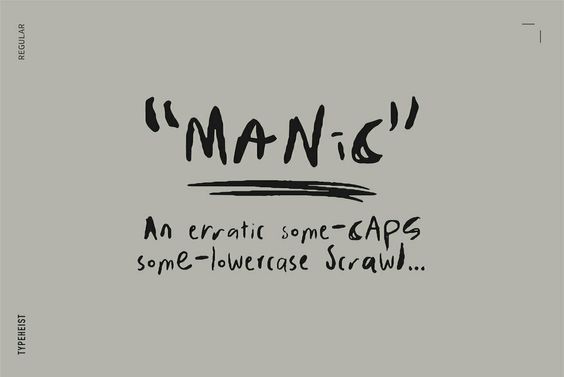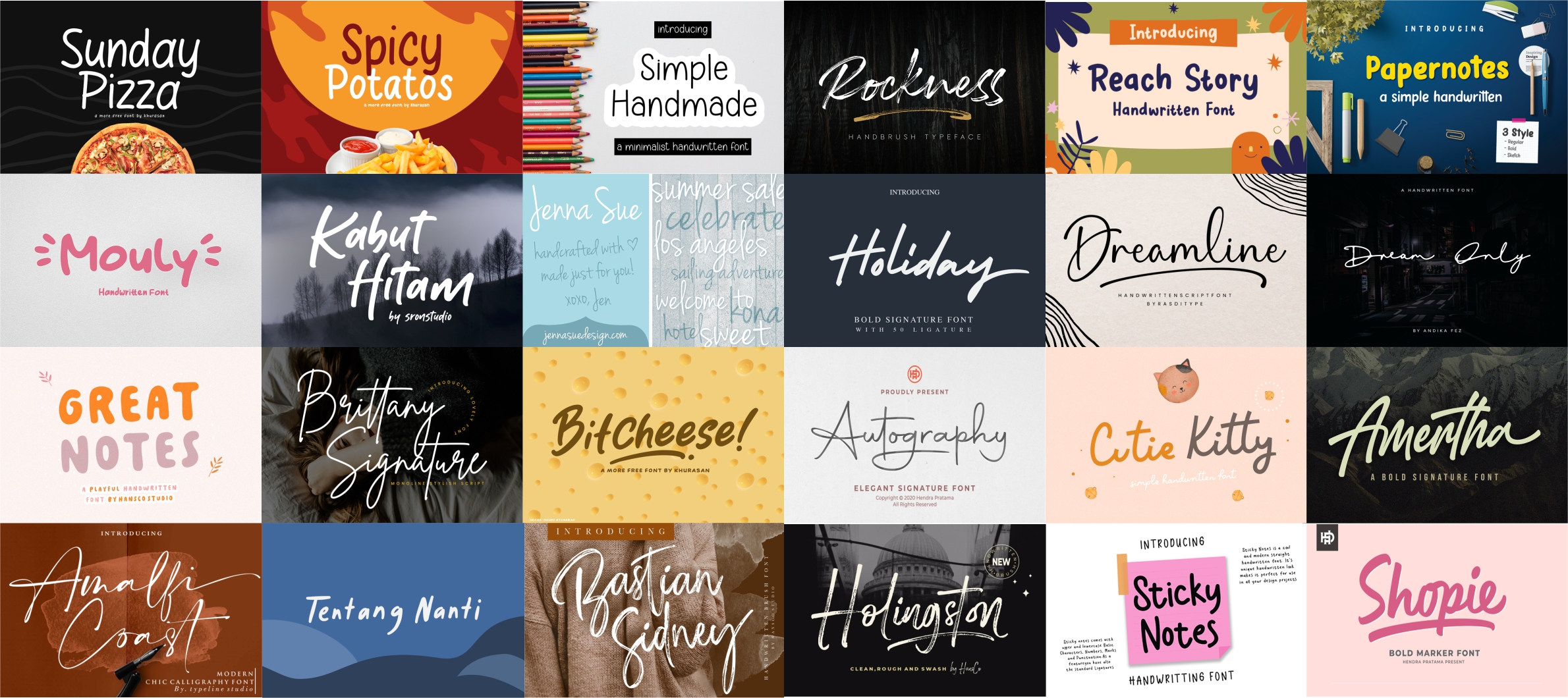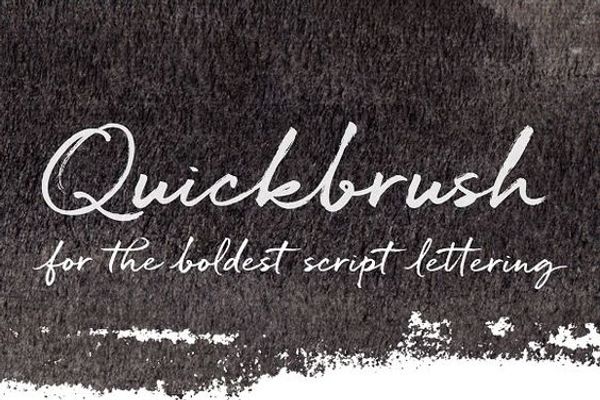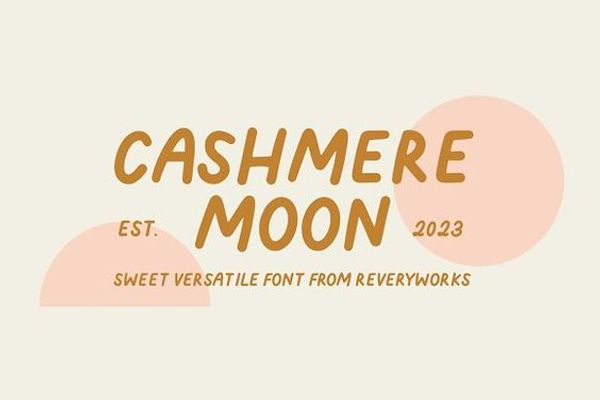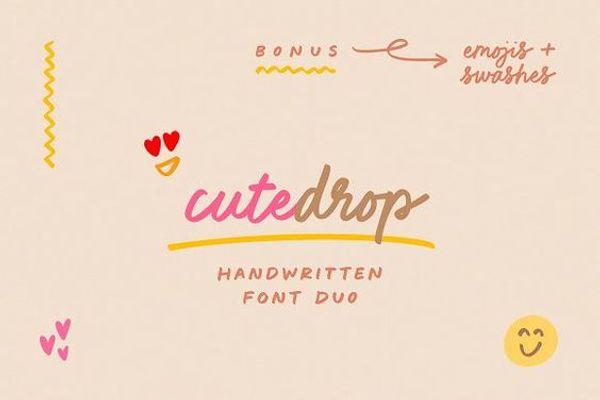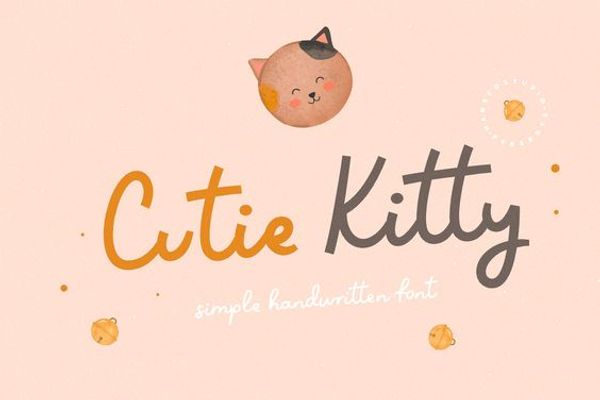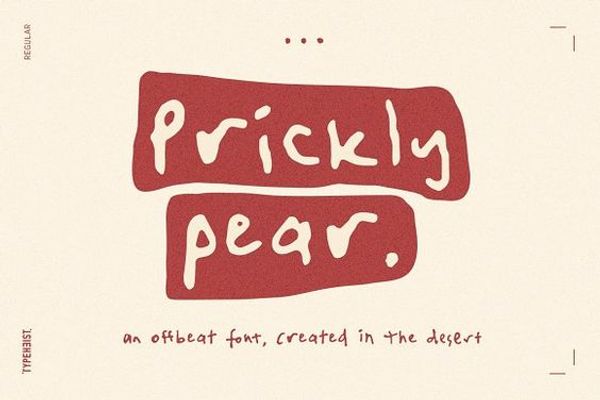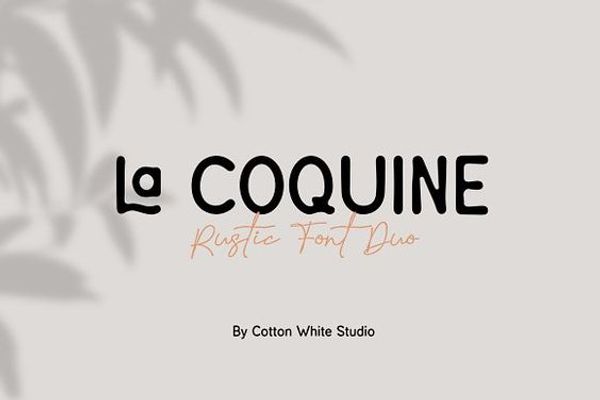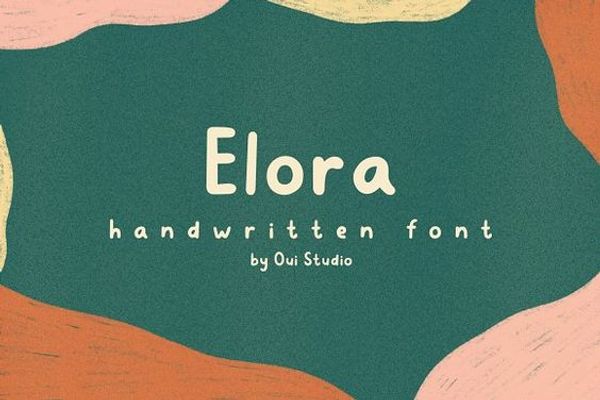
13 Prettiest Fonts Handwriting Options for Any Design Project
Are you having trouble incorporating an emotional element into your design? You can tackle this hurdle with various tactics, but fonts handwriting may be one of the simplest ways to do it. Handwritten fonts create a sense of whimsicality and personalization to a design, making it seem more “human.”
What kind of fonts that you should include in your graphic design? What are the best practices to use these fonts?
Top Handwritten Fonts to Beautify Your Work
You can find numerous handwriting-style fonts to incorporate into your work on the internet. Here are some of the top examples:
1. Quickbrush Font
Quickbrush is a bold, handwritten font that has the look of a brush pen lettering. It is bold and has a gender-neutral vibe, making this font suitable for any style of design. Because of its typography, this font can layer well over photos and various backgrounds.
The font is not too complicated and has plenty of rich textures, which becomes a statement piece on the design. It will allow you to deliver a strong message via the design without much work. Because there are contextual alternates for lowercase letters, the handwriting looks authentic.
2. Manic Font
This font can give any design a “character.” As the name suggests, this font creates an erratic vibe in the design. It is messy and very realistic, as in a sentence, you will find lowercase and capital letters merge harmoniously. It is one of the handwritten fonts modern that suits informal graphic design.
Each number and letter in the alphabet has four variations in the font. Each individual style lends to the “manic” look. The font set also contains double letter combos for lowercase and uppercase characters to further boost the unique style.
3. Wildflower Font
Many designers long for clean aesthetics that still maintain a handmade touch. Wildflower is a suitable font for that. This font is playful and simple, just like the handwriting of a real human. Any design that includes the font will look authentic. Its simplicity also makes the font very easy to discern.
In the set, you will find basic characters in lowercase and uppercase. It is optimized for Western and Central European languages. Furthermore, the font offers a variety of symbols that can enhance your final design. It is suitable for logos.
4. La Coquine Font
A versatile typeface is something that everyone is looking for. La Coquine boasts imperfectness, making it look like real handwriting. Its vibe is soft and vintage. The design looks like you are placing the characters with a stamp. It adds warmth to your design, enhancing the “personal” sense.
The set comes in two font types that are optimized for various languages. It means the font duo can accommodate designers from non-English speaking countries, too. La Coquine suits branding and logo projects. It even works well on business cards if you want to make it more friendly-looking.
5. Elora Font
The need for handwritten fonts cute never ceases. Elora is present to cater to that need. What strikes out from this design is its readability. Thanks to its typography style, the characters in Elora are legible and visually pleasing when combined. Each character also has the right thickness. You can make every color choice pop with Elora.
This font is appropriate for kids’ brands, children’s books, and even stationary items. Children can easily read the handwriting font. Designers can play around with the sizing to make the font even more interesting.
6. Club Tropicana Font
Do you want a design that embodies the summer season? Club Tropicana might be the right choice for you. It has an inky look that enhances the legibility of the characters. However, don’t expect the font to be perfect, as there are quirks that will make Club Tropicana characters look like real handwriting.
In the set, you can find 105 extra Opentype ligatures and alternates to further enhance the natural vibe of the font. It also comes with lighter characters if you need to make your design more varied. Club Tropicana supports several languages, including English, German, and Galician.
7. Juniper Bay Font
For handwritten fonts cricut, many people are looking for a style that has an organic feel but doesn’t sacrifice the necessary elegance. Juniper Bay delivers this need beautifully. It has a cool and calm character but with a sophisticated sense. Any design is taken to the next level by this font.
There are 130 customer letter combos within the set. The creator has carefully designed each ligature to ensure every letter flows seamlessly into the next one. When written using Juniper Bay, it makes words, phrases, and sentences look cohesive. Besides standard English, it can accommodate Latin-based languages.